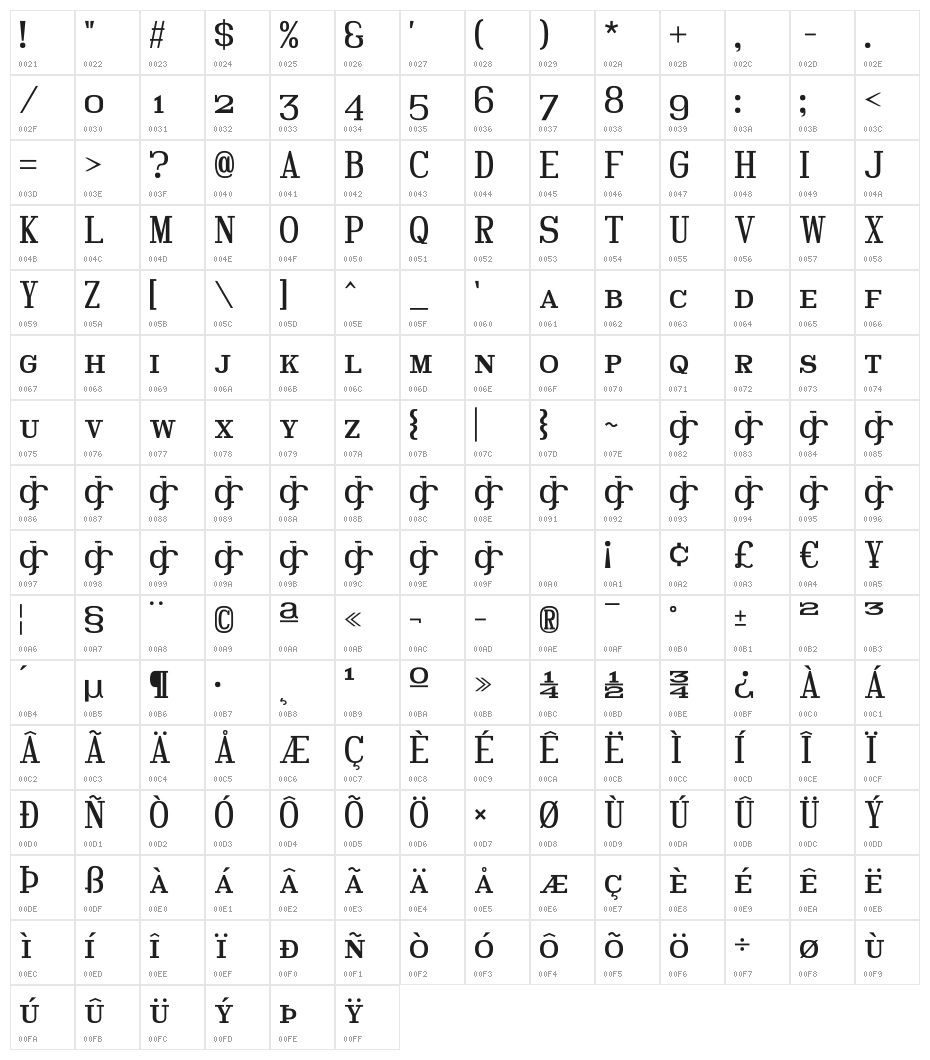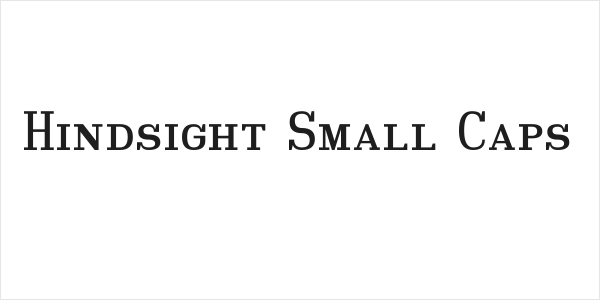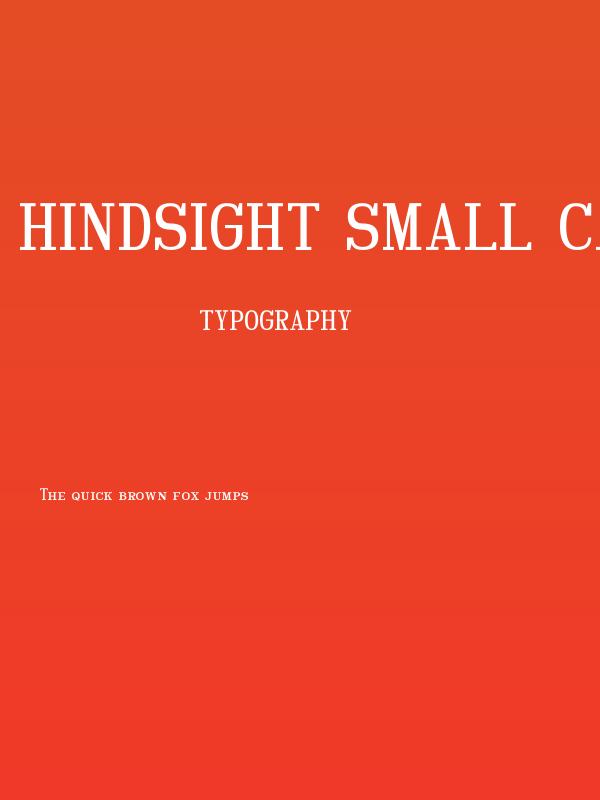
Hindsight Small Caps Font
Hindsight Small Caps Description
This typeface features a classic serif style with a strong, authoritative presence. The uppercase letters are bold and prominent, while the lowercase letters are designed in small caps, maintaining a uniform height that complements the uppercase set. The numerals are proportional, aligning well with the overall design, and the special characters are crafted to match the serif style, ensuring consistency across all glyphs. The font's strokes are moderately thick, providing a medium contrast that enhances readability while maintaining an elegant appearance. Its structured form and traditional serifs make it suitable for formal and professional applications.
| Use Case | Headlines, Logos, Editorial Design |
| Proposed Projects | Ideal for use in editorial design, book covers, formal invitations, branding for luxury products, and corporate identity materials. |